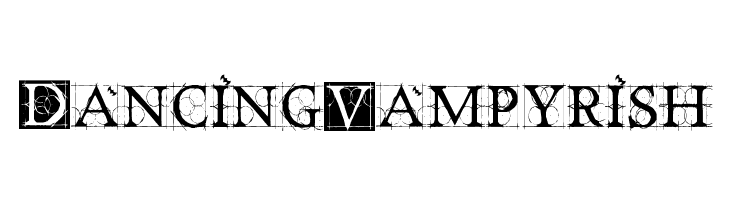
( Fonts by Rafael Dinner )
A bold, decorative font with a unique diagonal striped pattern.
( Fonts by Gyom Seguin - last-soundtrack.daportfolio.com )
A bold, distressed font with a rugged, grunge style.
( Fonts by The Scriptorium - Dave Nalle )
An intricate, blueprint-inspired font with detailed, decorative elements.
( Fonts by Dennis Ludlow - Sharkshock )
A bold, decorative font with vintage flair and modern elegance.
( Fonts by Dennis Ludlow - Sharkshock Productions )